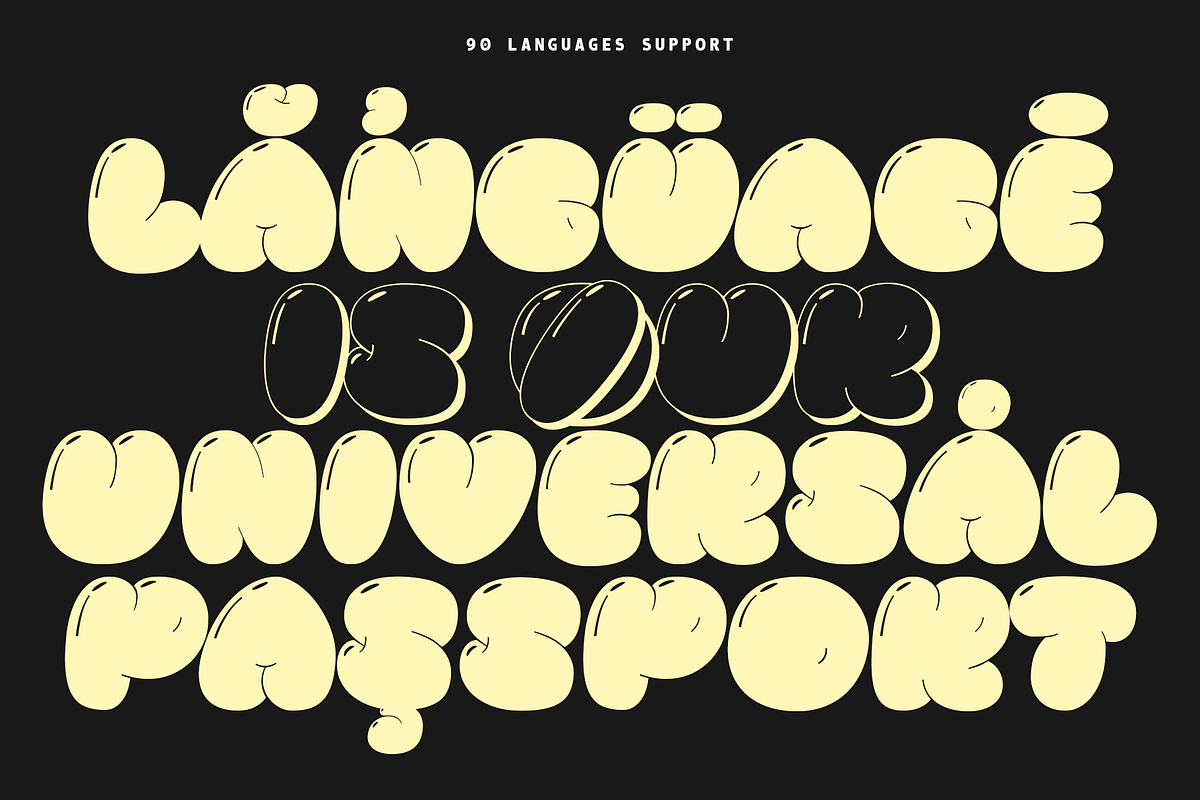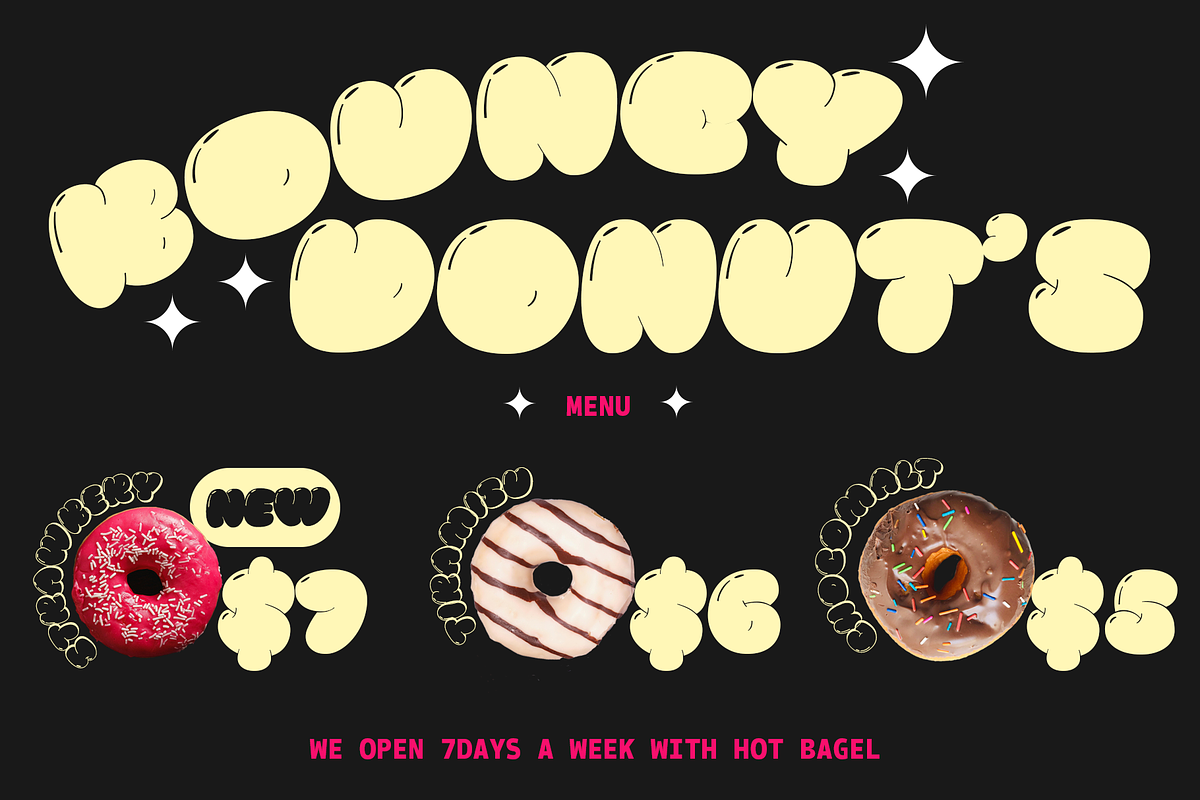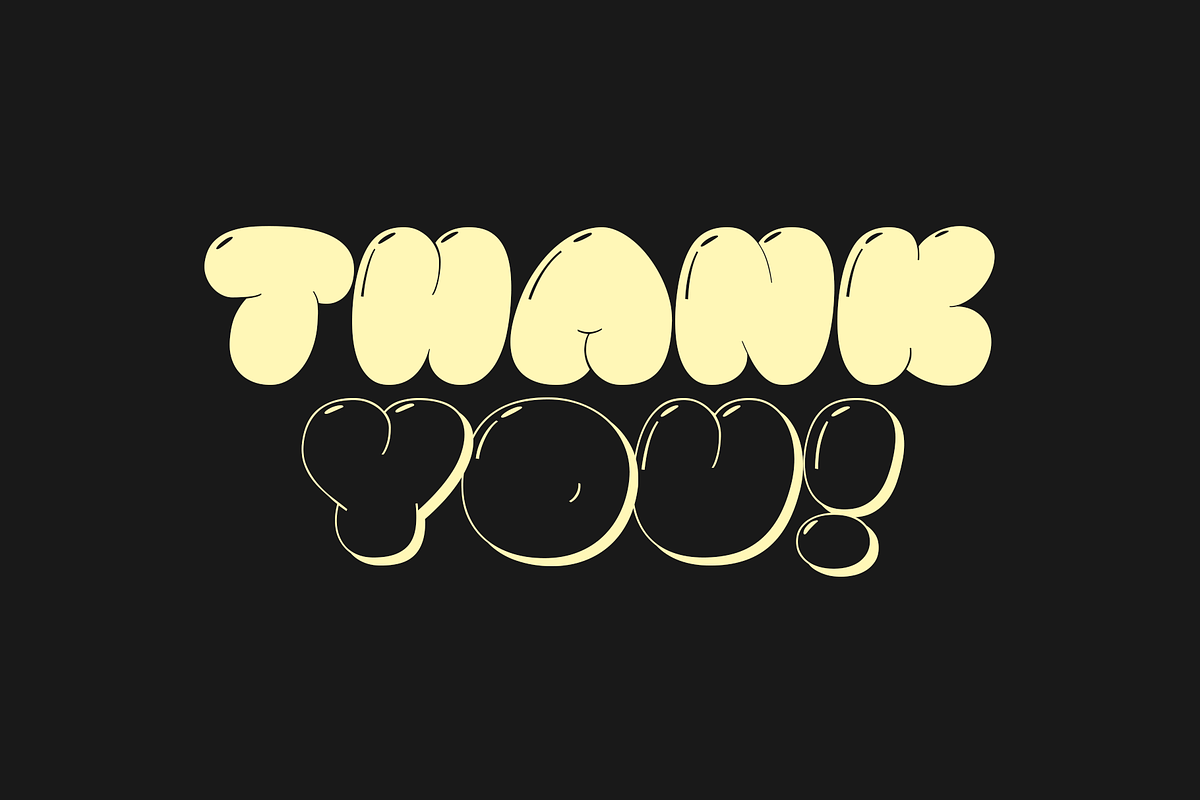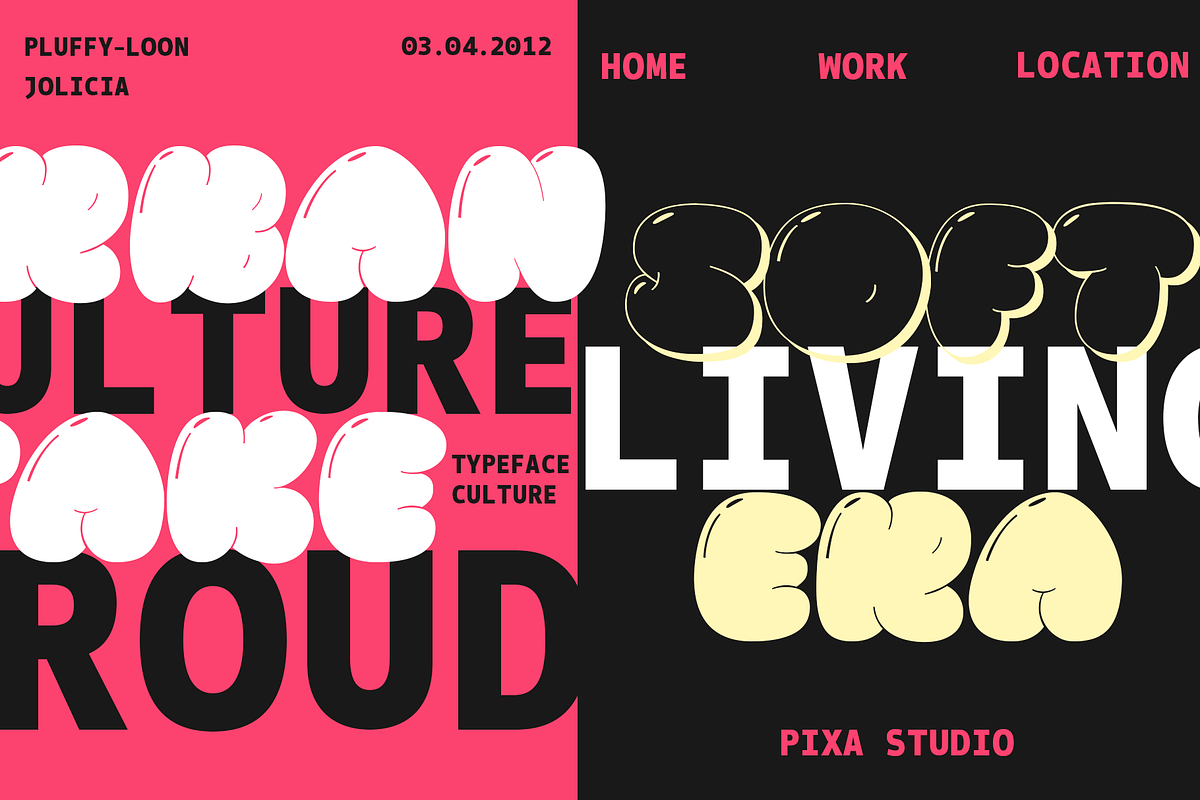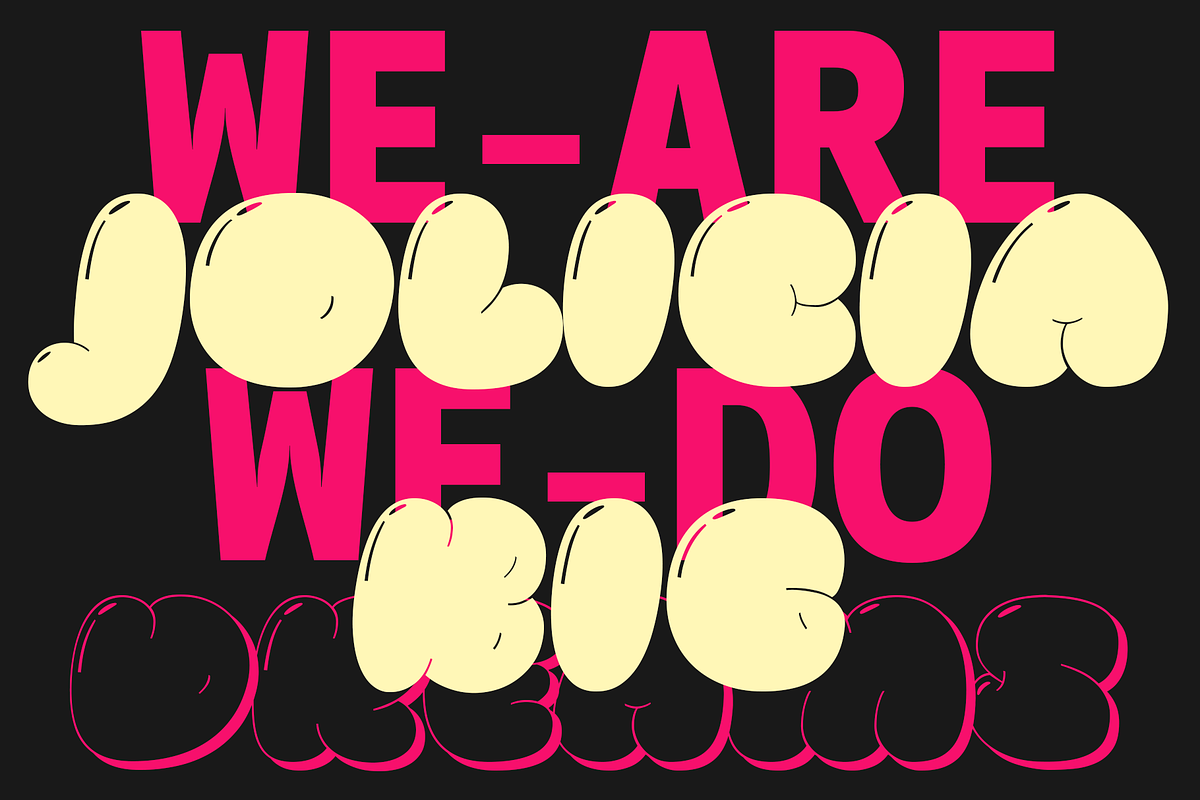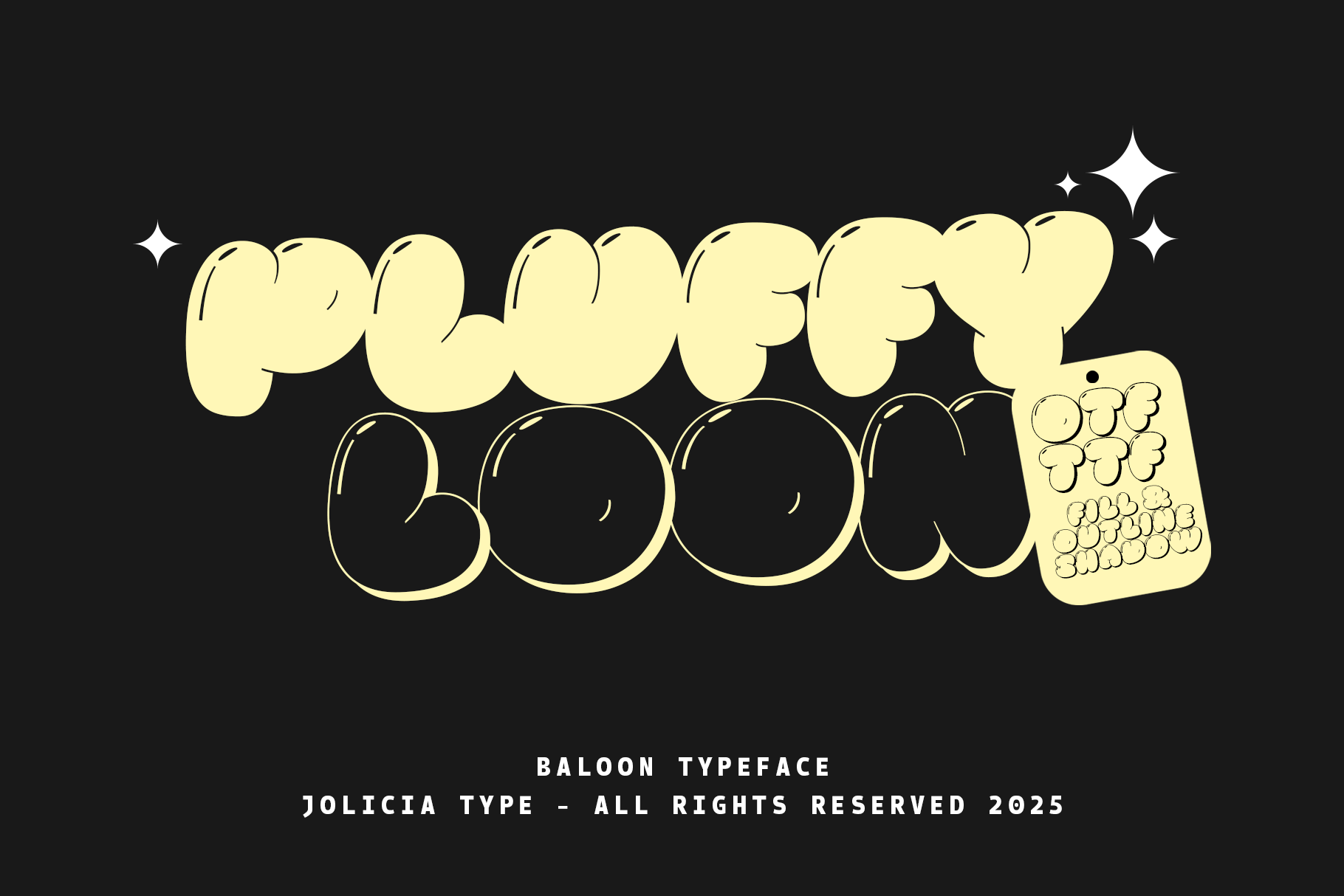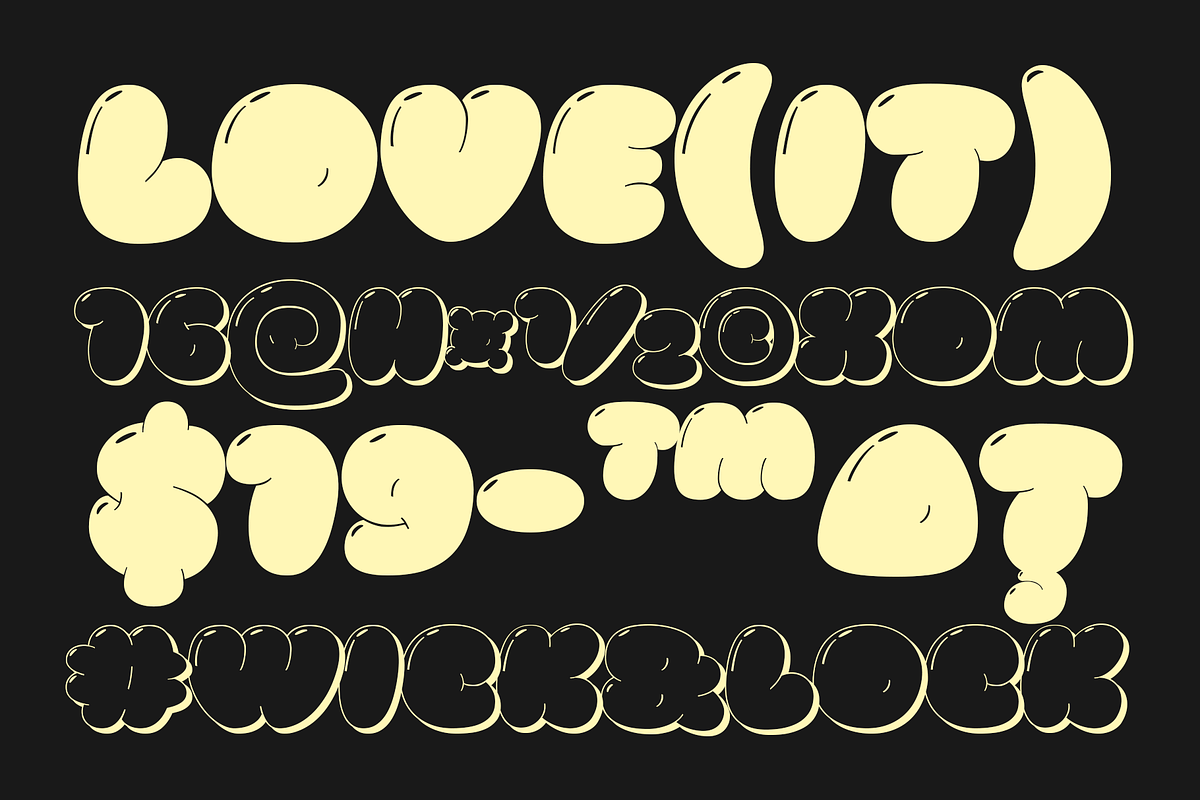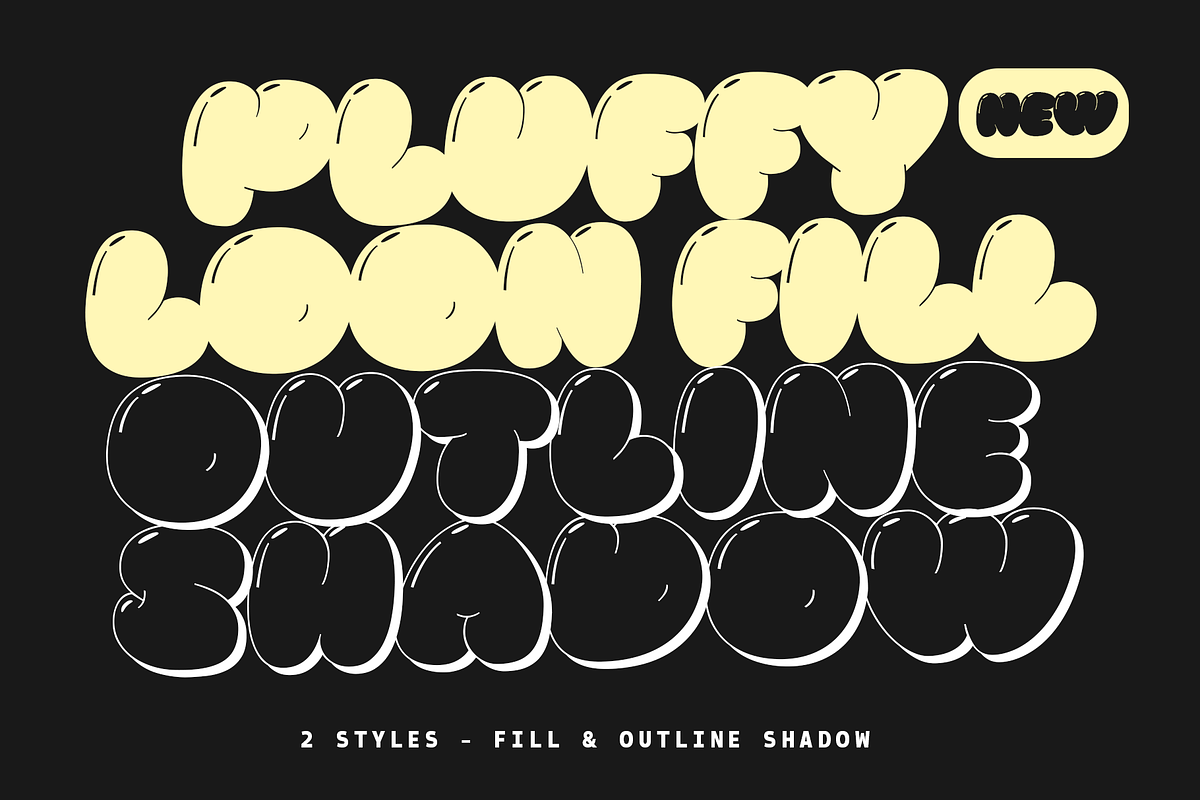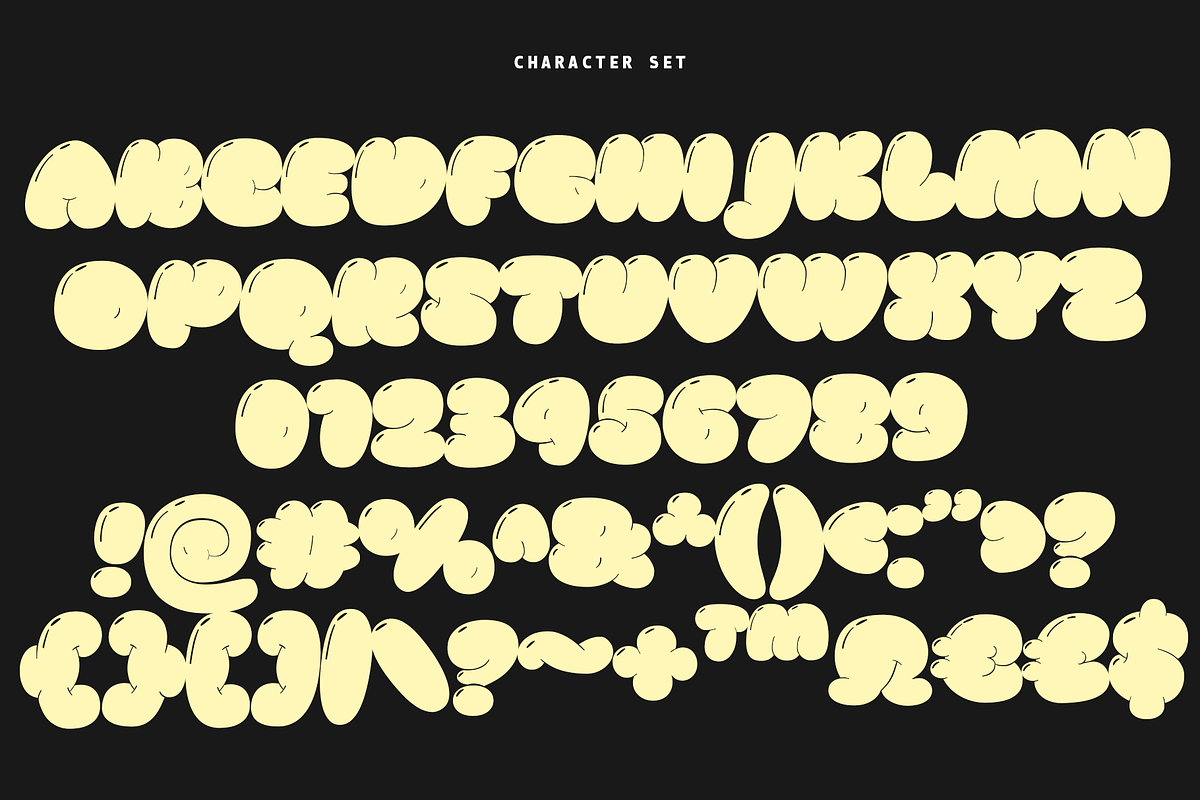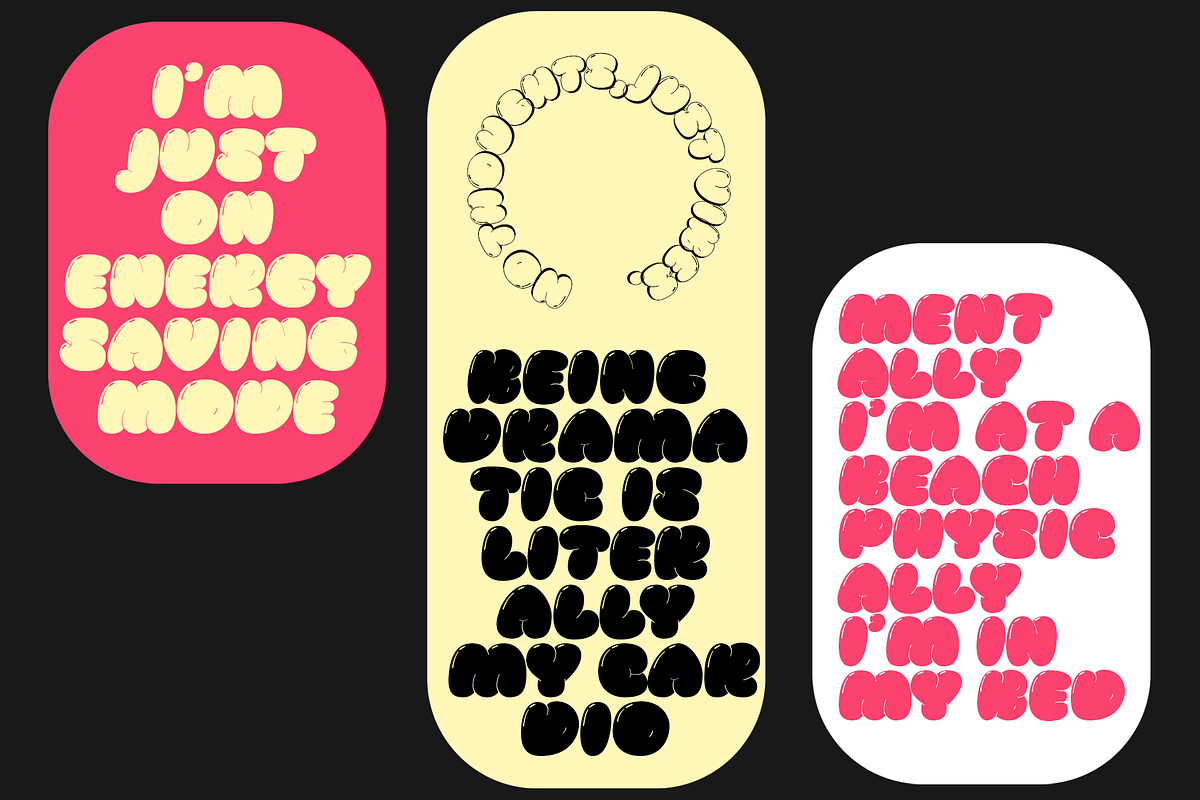
Pluffy Loon | Baloon Bubble Font
Pluffyloon is a bold, playful balloon-style font that's full of life and imagination. Each letter is crafted to look like an inflated balloon, complete with shiny highlights that create a fun, three-dimensional effect — just like a real helium balloon ready to float! Pluffyloon comes with 2 styles:
- Fill — a solid, bold balloon style
- Outline Shadow — a fun outlined version with a playful shadow Key Features:
- Includes 380 glyphs, covering uppercase letters, numbers, punctuation, and extra symbols
- Supports 90 languages (Western Europe, Central Europe, South-Eastern Europe, and Basic Latin)
- Round, full, and happy letter shapes perfect for children's invitations, birthday party posters, toy branding, playful packaging, and any project that needs a joyful touch
- Detailed highlight accents on each character for a lively, glossy balloon effect
- Ideal for fun, cartoon, creative branding, event designs, and more! Available Formats: